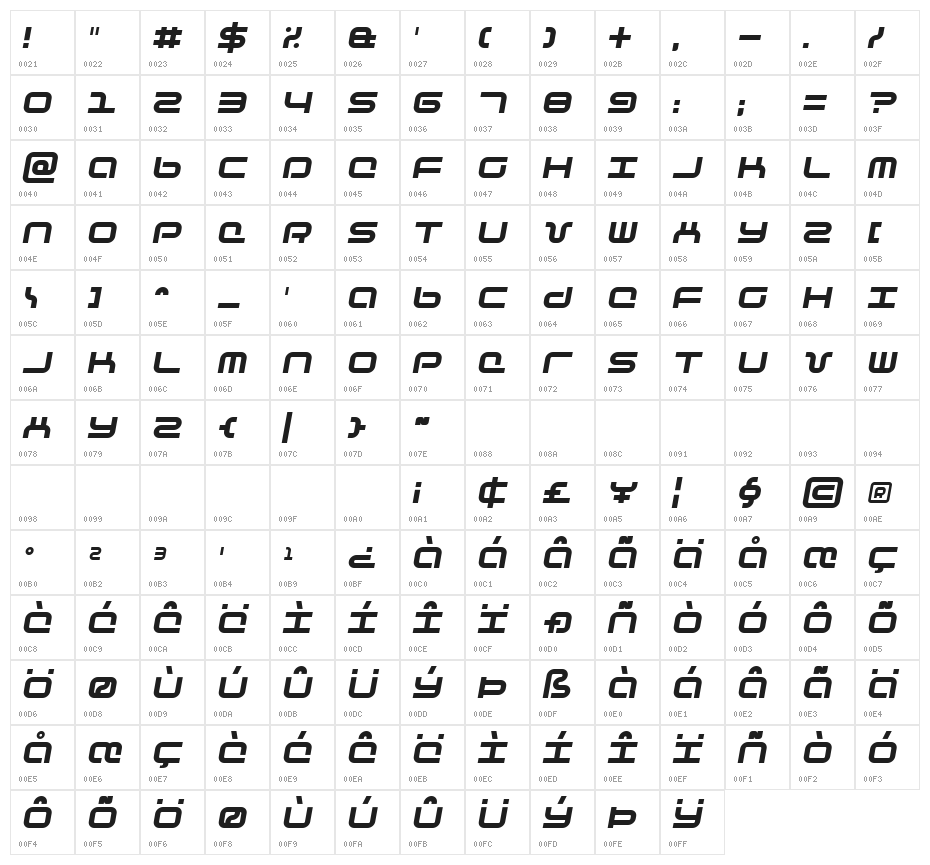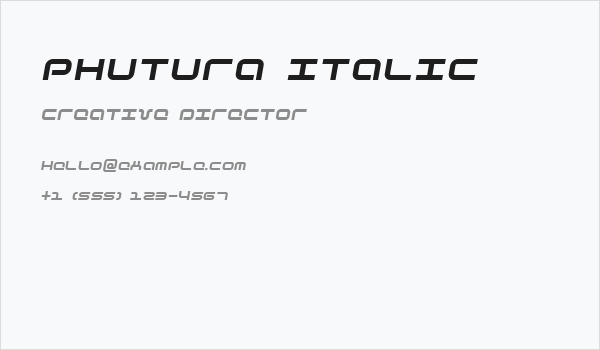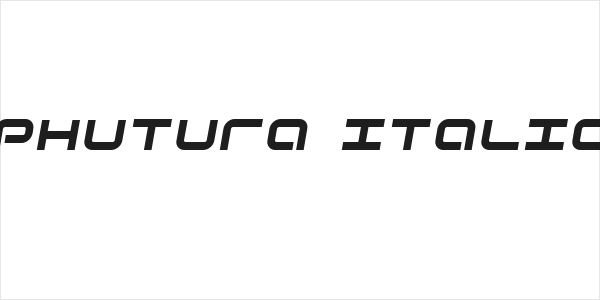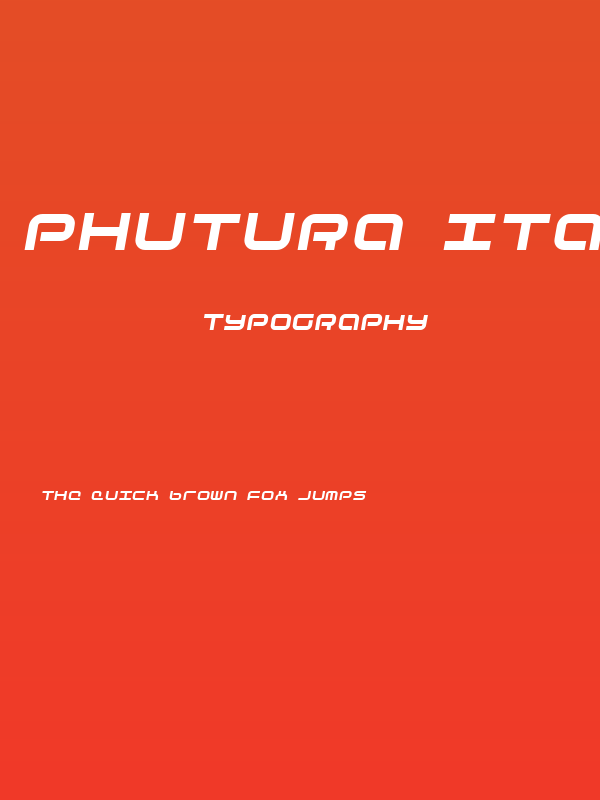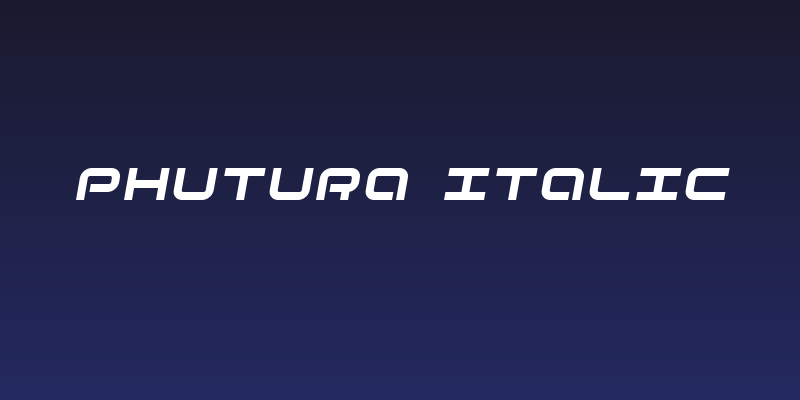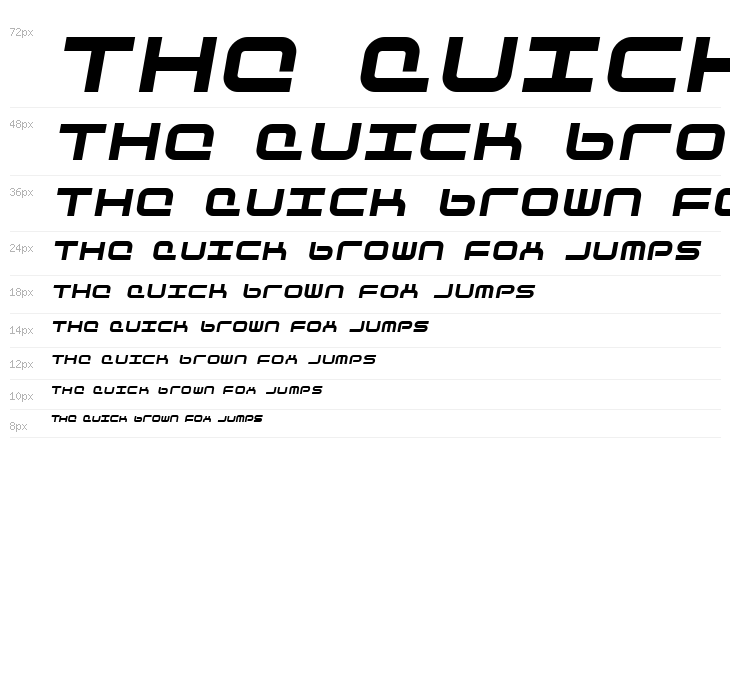
Phutura Italic Font
Phutura Italic Description
This font features a sleek, futuristic design with a distinct italic slant, giving it a dynamic and forward-moving appearance. The characters are crafted with a geometric precision, showcasing rounded edges and uniform stroke thickness that contribute to its modern aesthetic. The uppercase and lowercase letters maintain a consistent style, while the numerals and special characters complement the overall design. The font's clean lines and minimalistic approach make it suitable for a variety of contemporary applications.
| Use Case | Headlines, Logos, Digital Interfaces |
| Proposed Projects | Ideal for technology branding, sci-fi themed projects, modern advertising, and digital interfaces. |